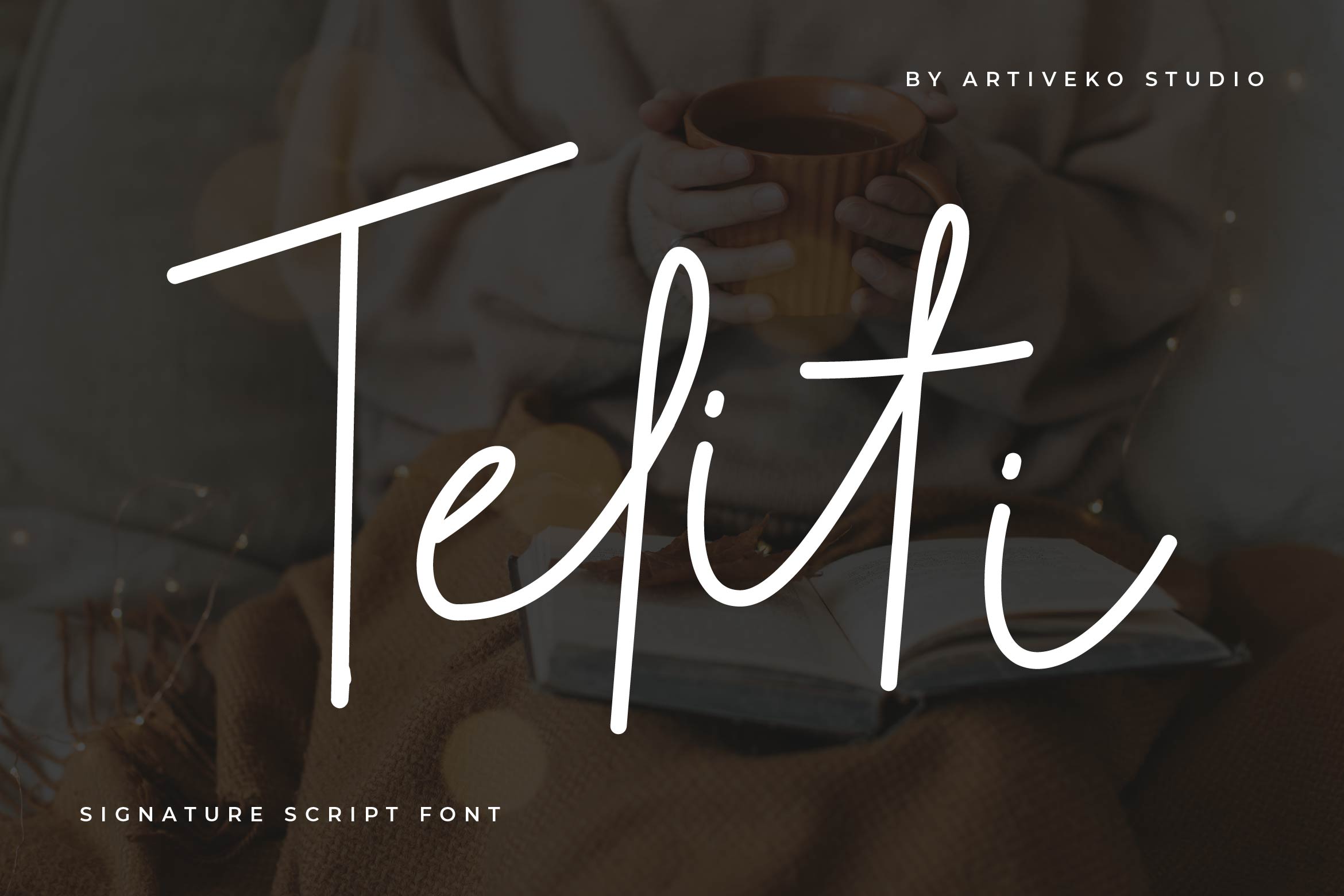
- Teliti Signature Script Font
Teliti is a modern handwritten script font that blends graceful curves with a natural, flowing rhythm. Designed to bring warmth and sophistication, Teliti is ideal for branding, wedding invitations, social media graphics, greeting cards, product packaging, and editorial designs.
Its smooth, organic strokes give your typography a personalized feel, while maintaining high readability. Perfect for both casual elegance and stylish professionalism, Teliti includes uppercase and lowercase letters, numerals, punctuation, multilingual support, and a beautiful selection of ligatures and alternates for custom flair.
Whether you’re crafting a chic logo or heartfelt stationery, Teliti brings emotion, clarity, and elegance to every letter.
Write your story with Teliti — the script font that balances handcrafted beauty with refined charm.